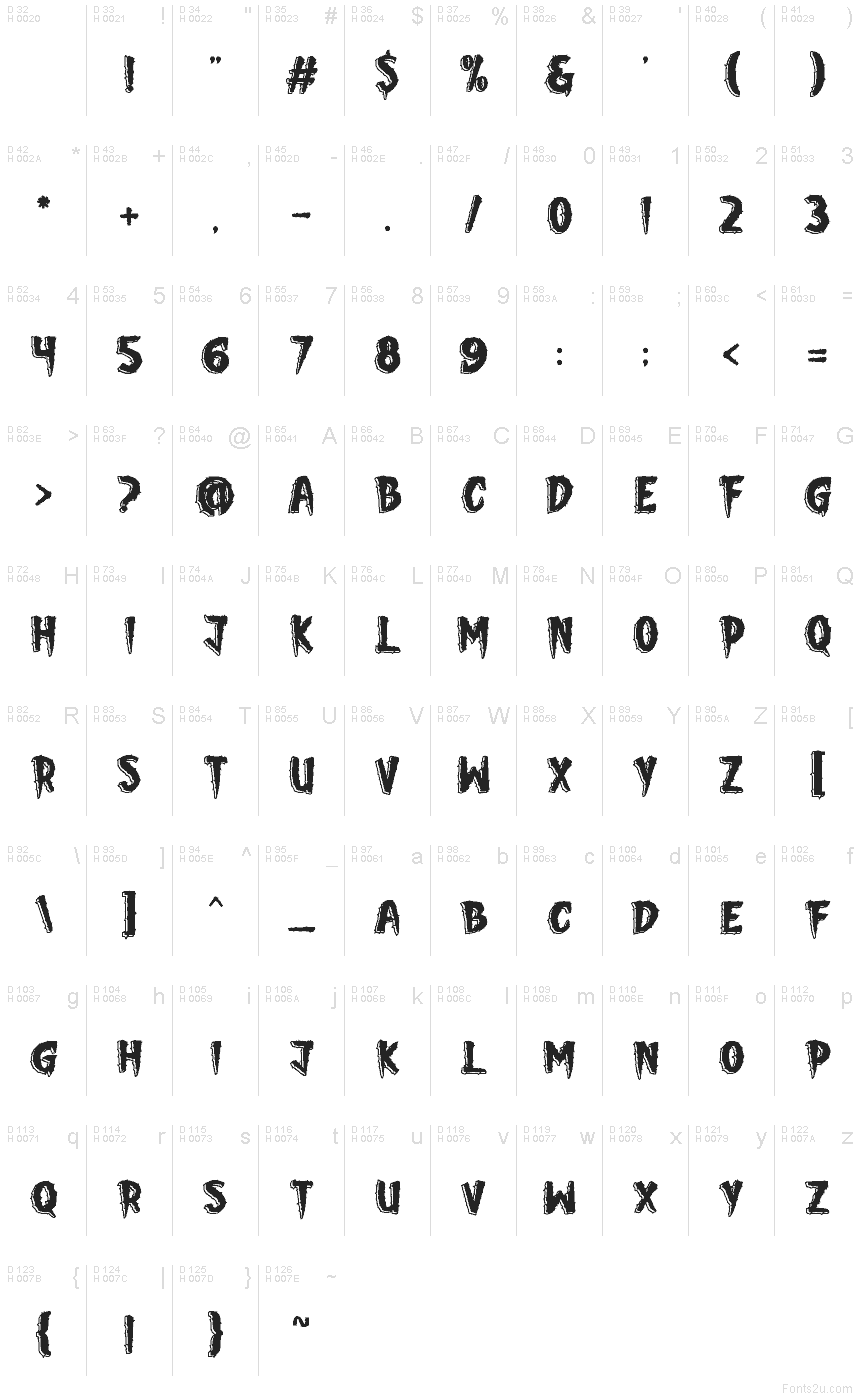
Pumpkin Stare Two
Pumpkin Stare Two font by PutraCetol Studio is a free Halloween display font built to deliver instant spooky mood. Part of the Pumpkin Stare family, its letters look carved and gouged, with inky drips and jagged edges that feel freshly scraped from a jack-o’-lantern. The rhythm is loud and uneven in a way that reads fast at headline sizes, giving you impact without sacrificing legibility.